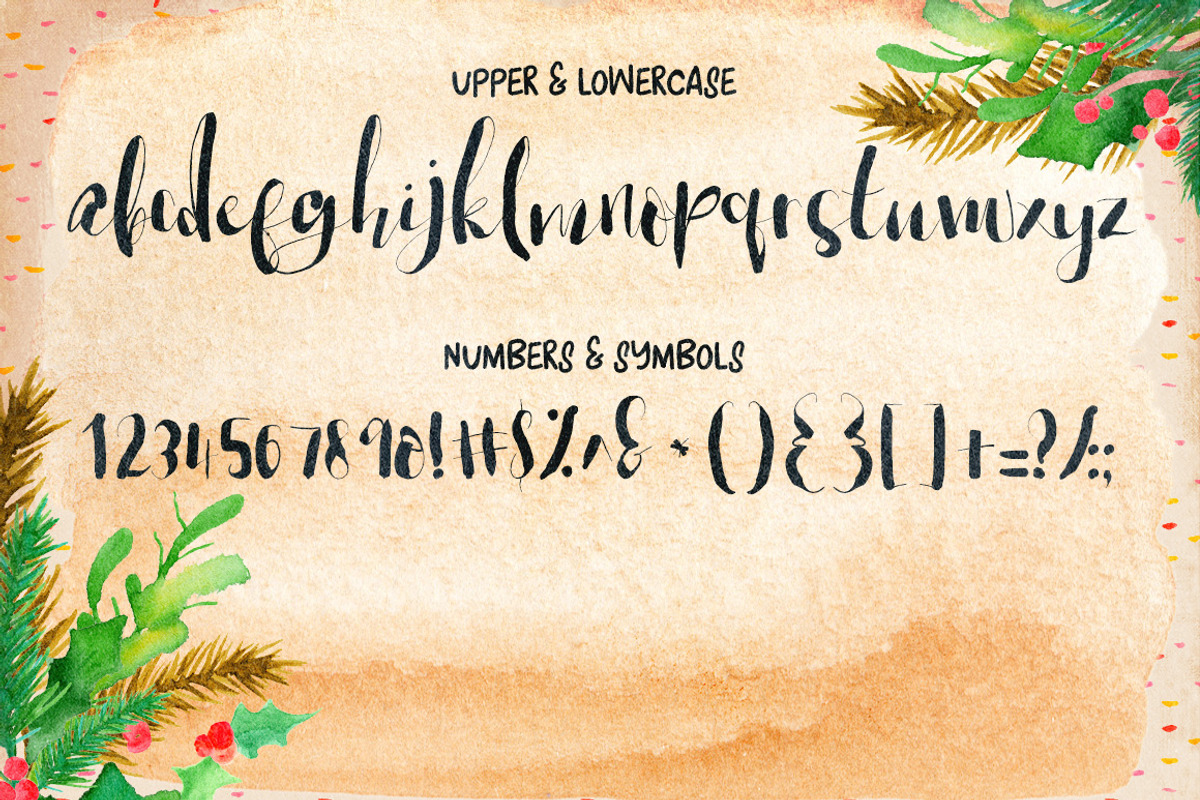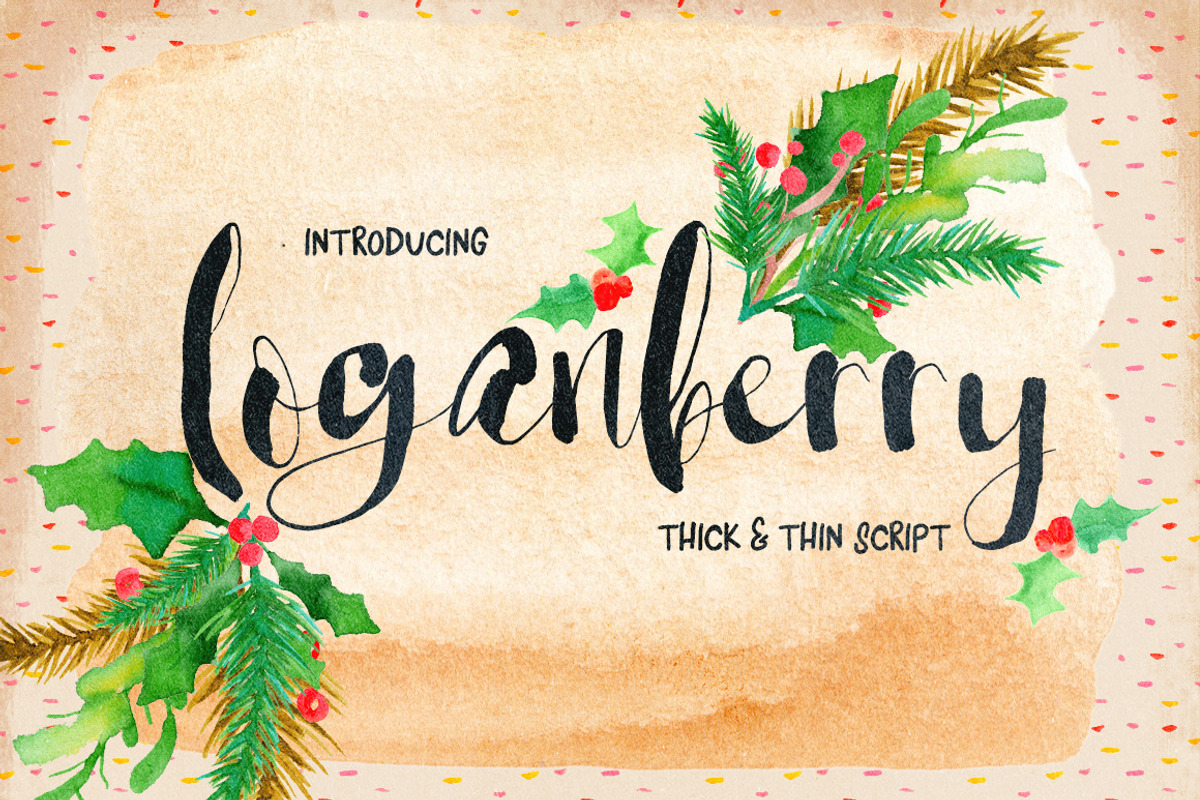
Loganberry Font
This is Loganberry. A trendy brush script font. This font is part of the Gobsmacking Font Bundle here
Why Loganberry Font is worth a look
Loganberry Font by Creativeqube Design fits naturally into Branding, posters, packaging, typography.